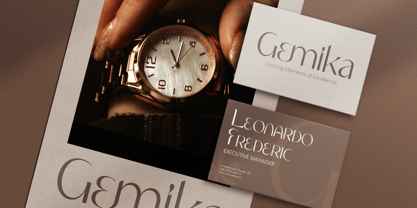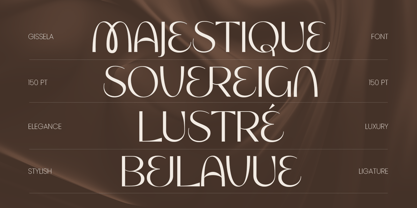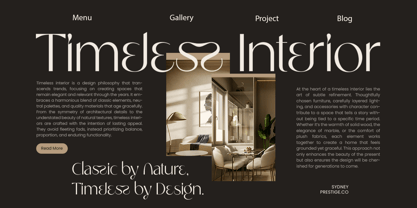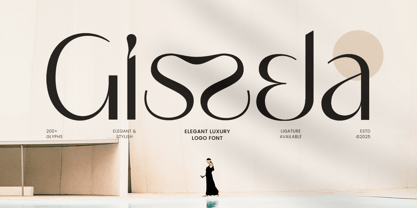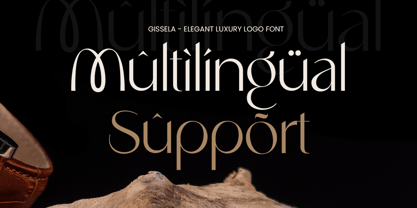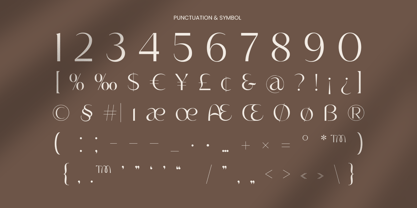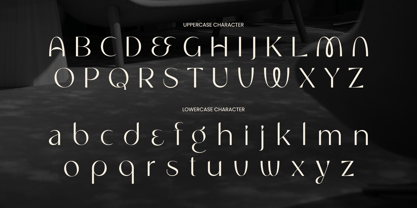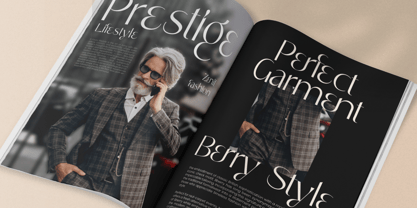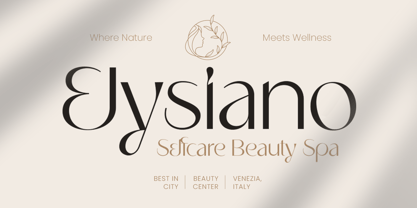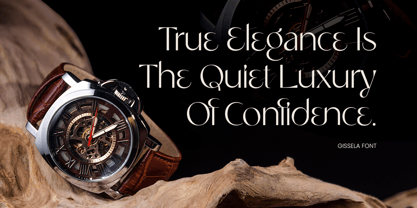
Gissela
por Sensatype Studio
A família de fontes Gissela foi desenhada por Zamroni Hamzah e publicada pela Sensatype Studio. Gissela contém 1 estilos. Saiba mais sobre esta família
Gissela is an Modern Classy logo font crafted to bring sophistication, beauty, and timeless refinement to your branding projects. With its graceful curves, high-contrast serifs, and meticulously balanced letterforms, this typeface evokes the essence of premium fashion, boutique identity, and upscale editorial design.
Designed for designers who seek a polished and exclusive visual presence, Gissela shines in logos, packaging, magazines, invitations, and luxury product displays. Its expressive details and refined structure make it ideal for brands that value elegance, simplicity, and modern prestige.
From fashion houses to beauty brands, Gissela adds a touch of class that elevates any visual identity across both print and digital platforms.
Gissela – Modern Classy Logo Font Features
• High-contrast Modern Classy font for luxury branding
• Perfect for logos, fashion identity, packaging, and editorials
• Stylish curves and refined details for a premium look
• Ideal for beauty, lifestyle, and creative industries
• Uppercase, lowercase, numerals, and punctuation included
• OpenType features for advanced typographic refinement
Create timeless elegance with Gissela – the ultimate luxury logo font for high-end branding and refined editorial design.